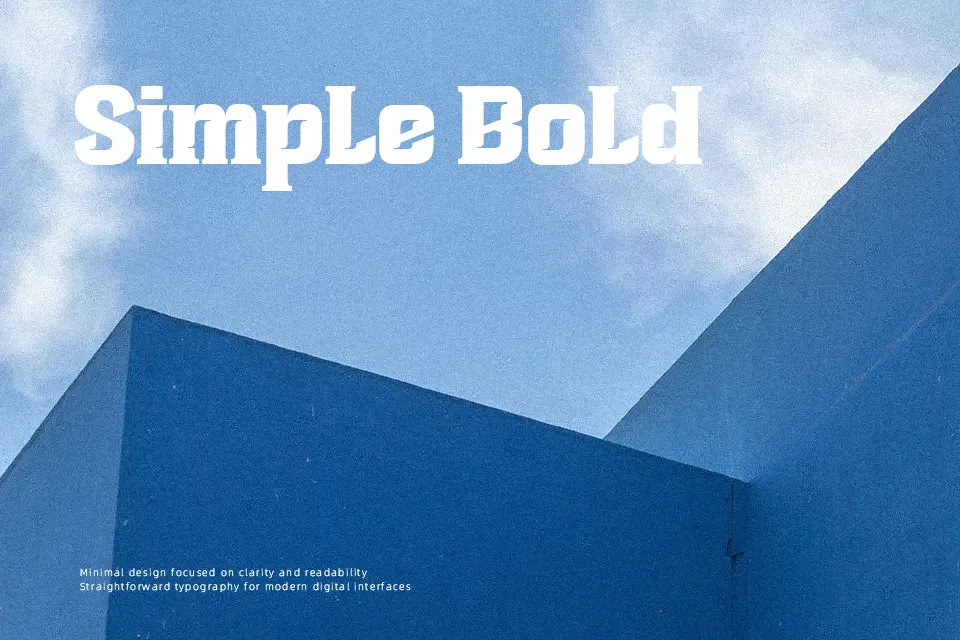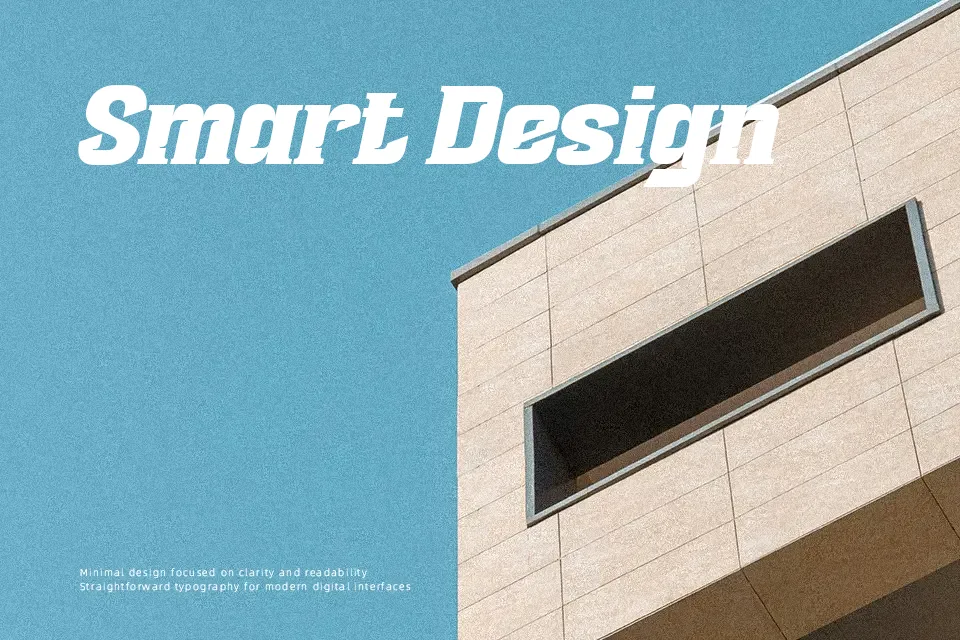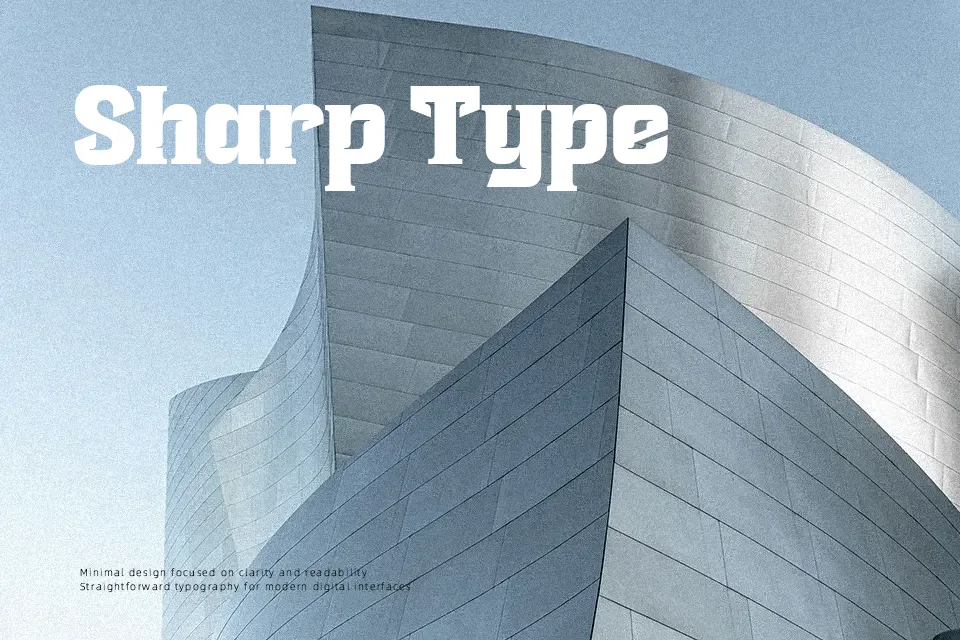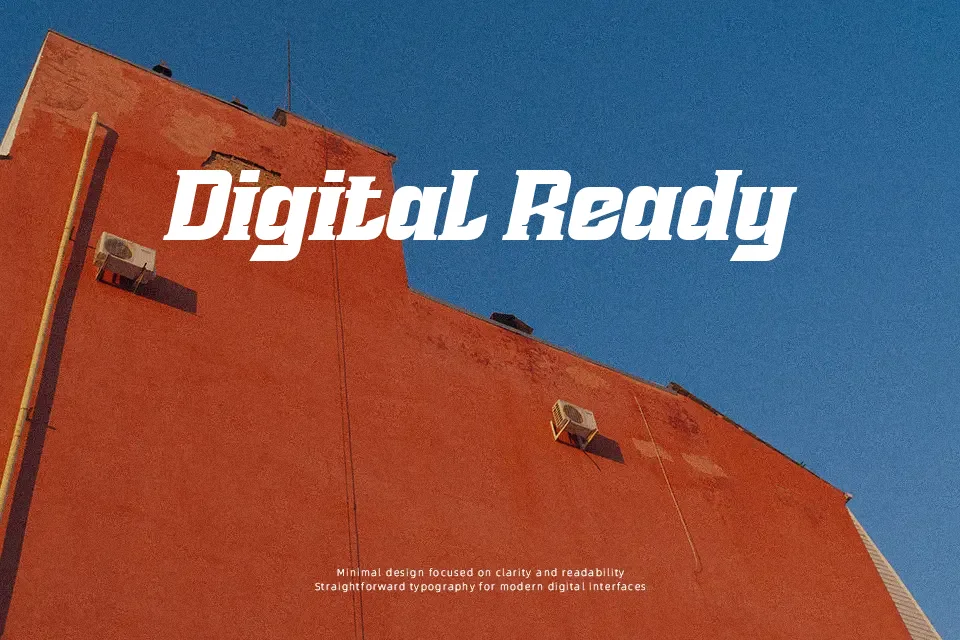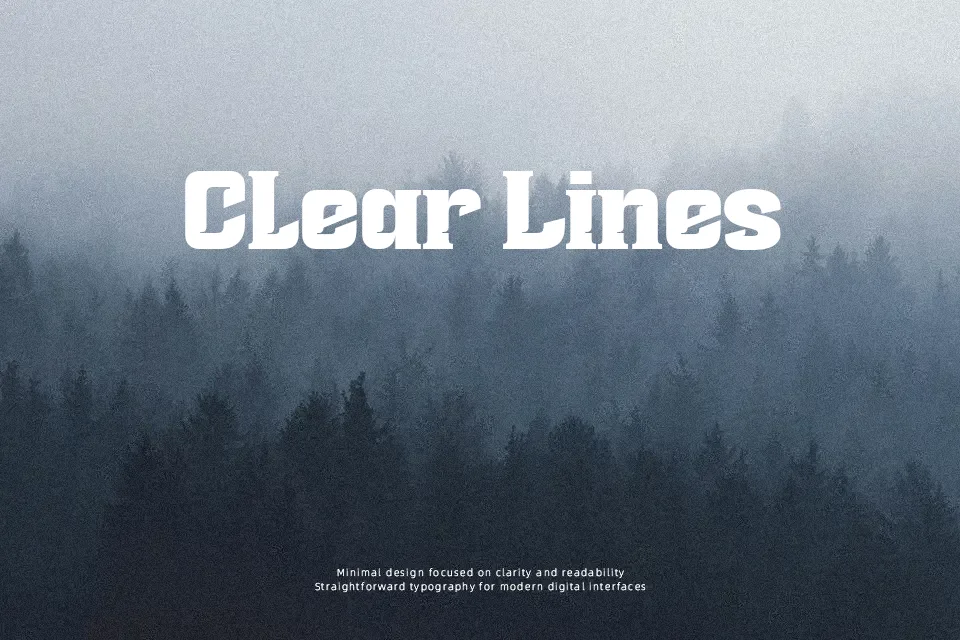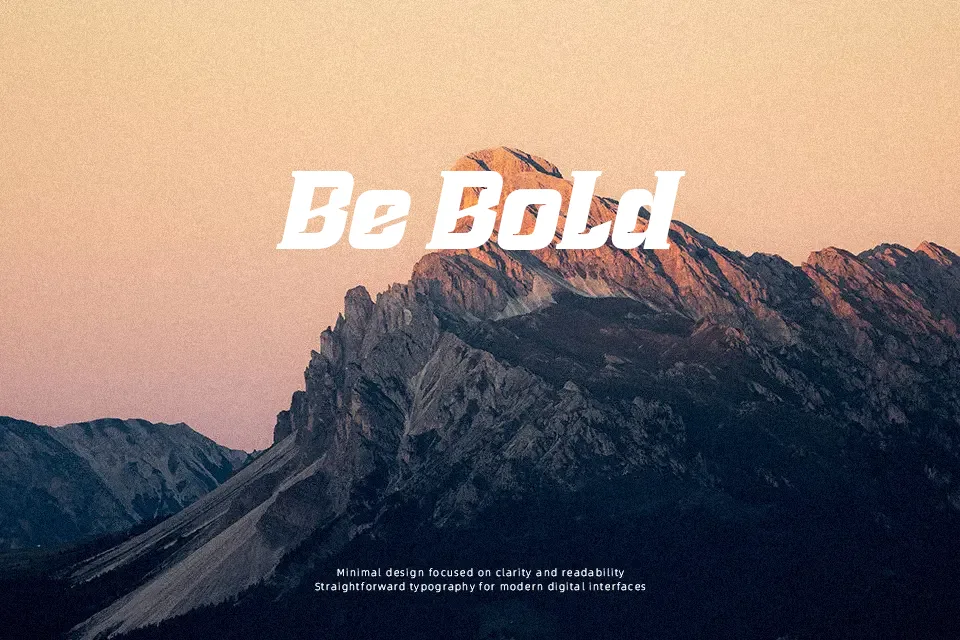
Athyrki Font
Designed by twinletter
Athyrki carries a muscular, stadium-ready presence — thick serifs, a deliberate contrast between curved and angular strokes, and a structure that reads authority at scale. It comes in Regular and Slant variants, giving layouts both grounded and motion-driven options. The alternates and ligatures add versatility to wordmarks and short headlines without requiring heavy manual kerning. At larger sizes, the round-sharp tension between characters creates an almost kinetic energy that works well for sports branding and event titles. Where it stumbles: small-size use collapses legibility, and its personality is too dominant for any context requiring neutral or refined tone — pairing it with editorial copy or formal layouts will likely feel jarring.
Best For:- Sports team logos and jersey wordmarks
– Event or tournament poster headlines
– Gaming and esports visual branding
– Social media campaign headers
Not Ideal For:- Body text or long paragraphs
– Corporate reports or formal documentation
– Minimal or luxury brand aesthetics
– Small-size UI labels or captions
Perfect for advertising, branding, and gaming, with a bold and condensed style.